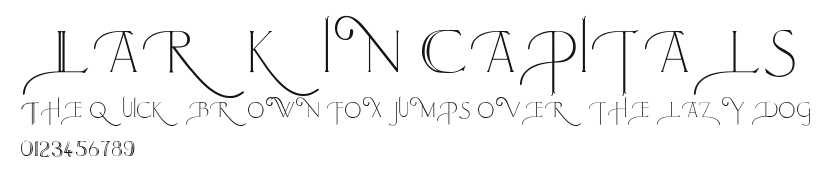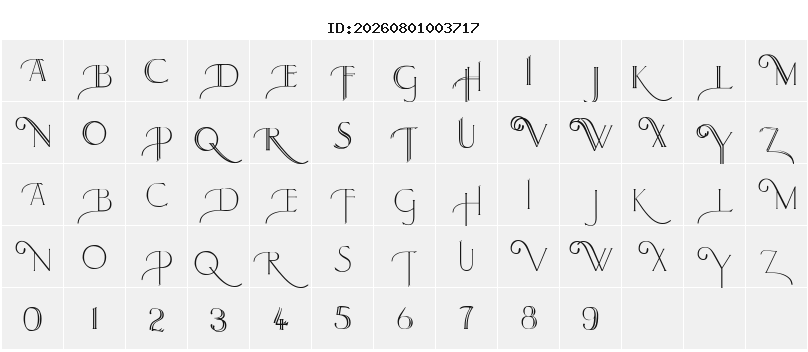
• Font Name: Larkin Capitals
• Designer: PJL
About Larkin Capitals.ttf
Larkin Capitals.ttf is a modern, elegant sans-serif font designed for ultimate readability and visual harmony. Perfect for branding, headlines, web design, and print materials.